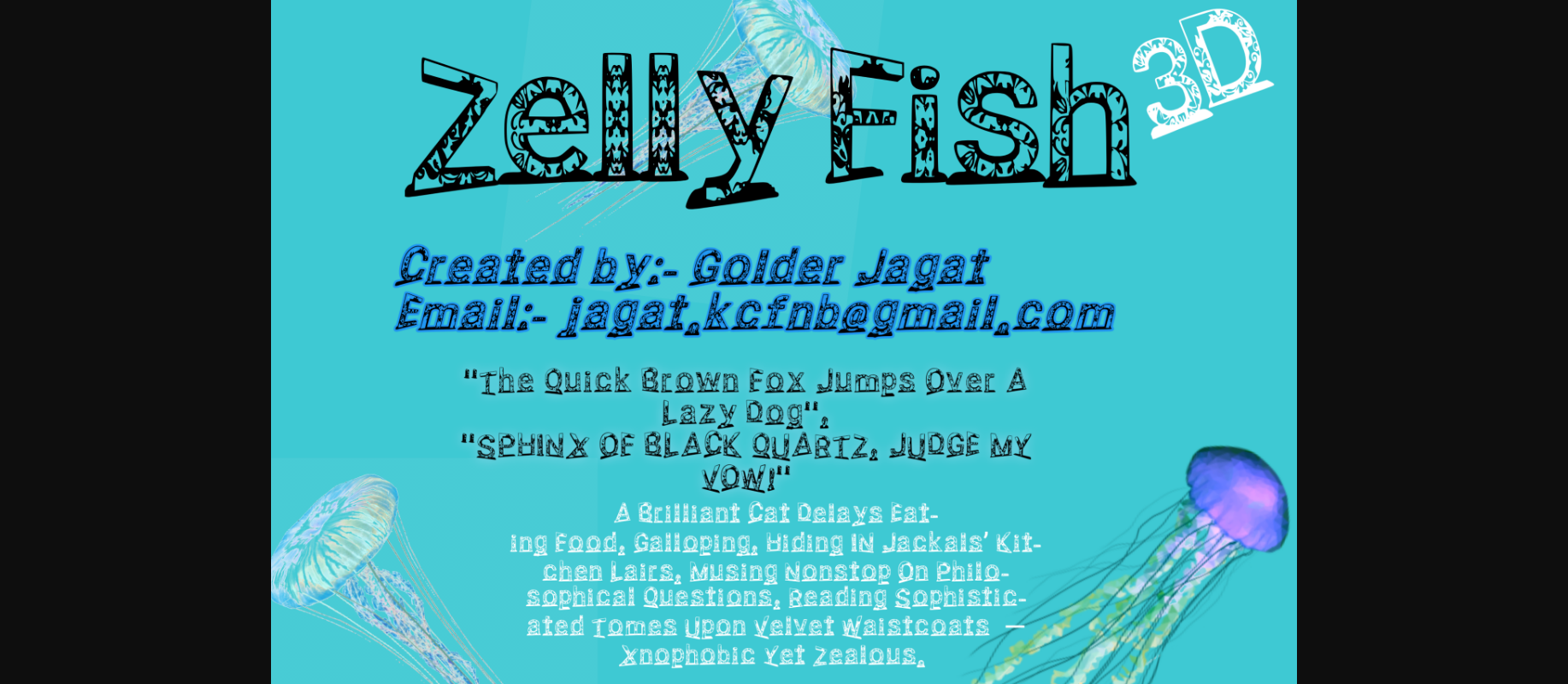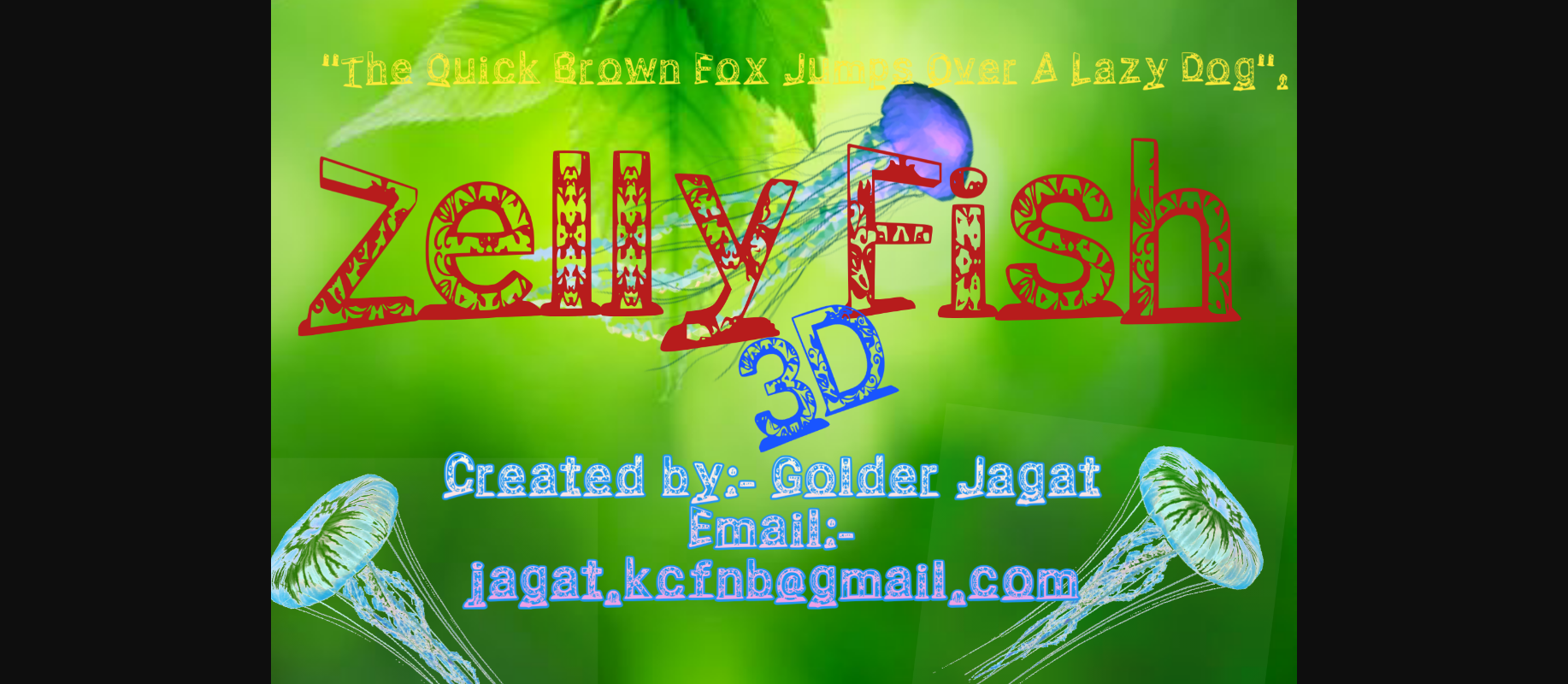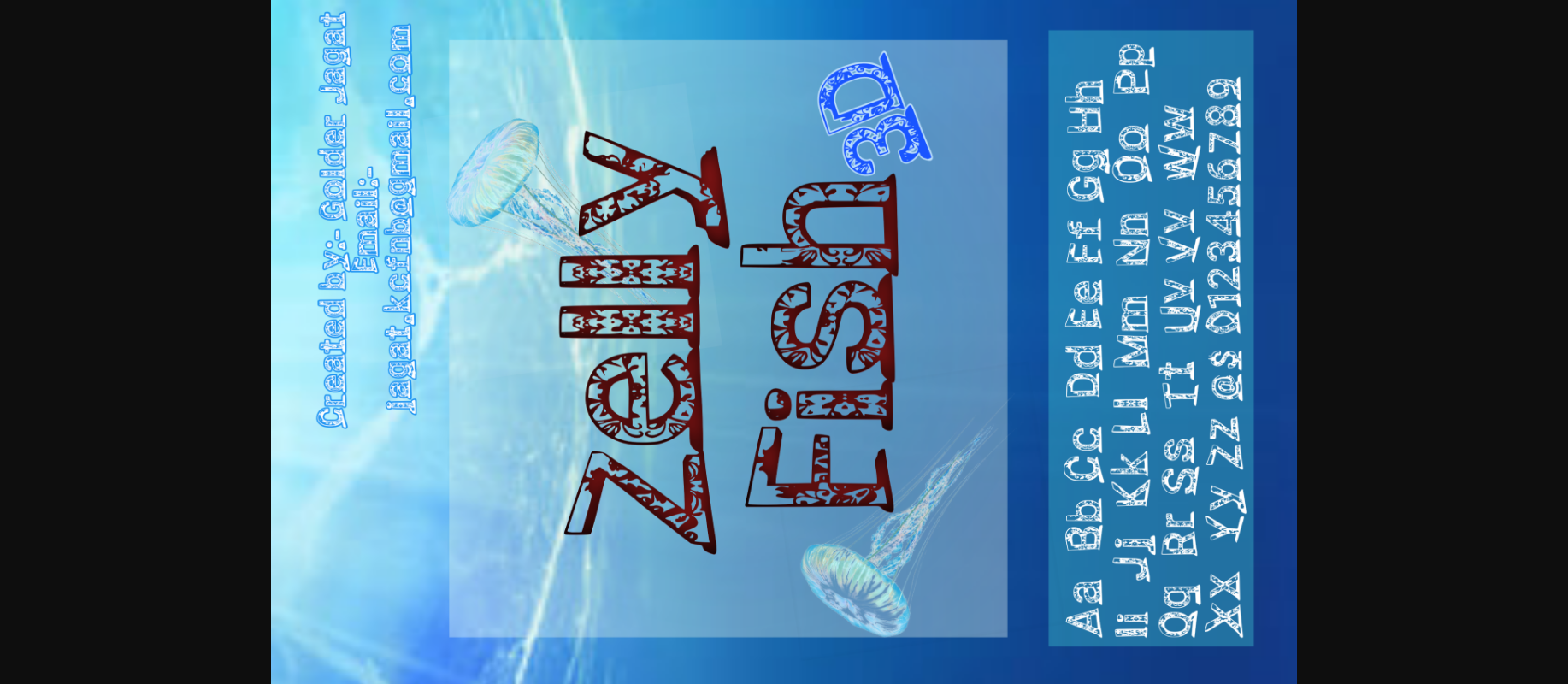
HomeDecorative FontsJelly Fish Font Decorative Fonts Jelly Fish Font FacebookXPinterestWhatsApp 1 of 5 ... Jelly Fish Font Poster 2... Jelly Fish Font Poster 3... Jelly Fish Font Poster 4... Jelly Fish Font Poster 5... About Jelly Fish Font Jelly Fish is a fun, daring and trendy decorative font. It can be used for various designs, such as posters, magazine covers, headlines and so much more. DOWNLOAD NOW People also explored Jelly Belty Font Bandolero Evelyne Font Phantom Font Coffee Font Red Stone Font Dayline Script Font Rowdy Font Mister Television 398 0 TagsJelly Fish Font Previous articleBelinda Monogram FontNext articleElegant Monogram Font LEAVE A REPLY Cancel reply Comment: Please enter your comment! Name:* Please enter your name here Email:* You have entered an incorrect email address! Please enter your email address here Website: Save my name, email, and website in this browser for the next time I comment. Personal Use Free Burgie Personal Use Free Read more about this font Hagia Signal Personal Use Free Read more about this font Critical Personal Use Free Read more about this font Squealer Personal Use Free Read more about this font BLOG Using Fonts in Digital Marketing: Tips to Strengthen Your Brand Identity In the realm of digital marketing, every visual element plays a crucial role in shaping a brand's identity, and fonts are no exception. The... Best Fonts for YouTube Videos: Make Your Thumbnails Stand Out How to Cut Any Font on Cricut: Convert a Font to SVG (Free) Where to Buy American Fonts Online in 2024